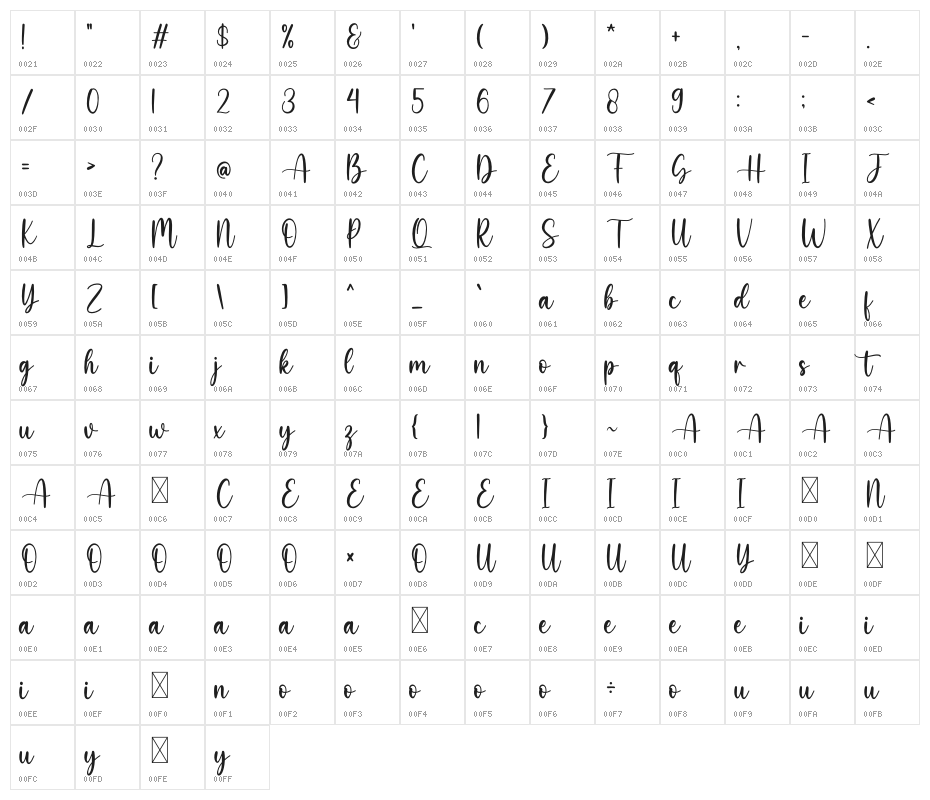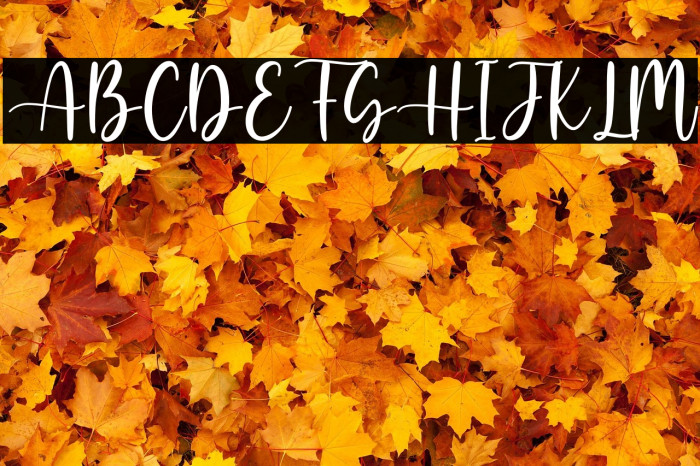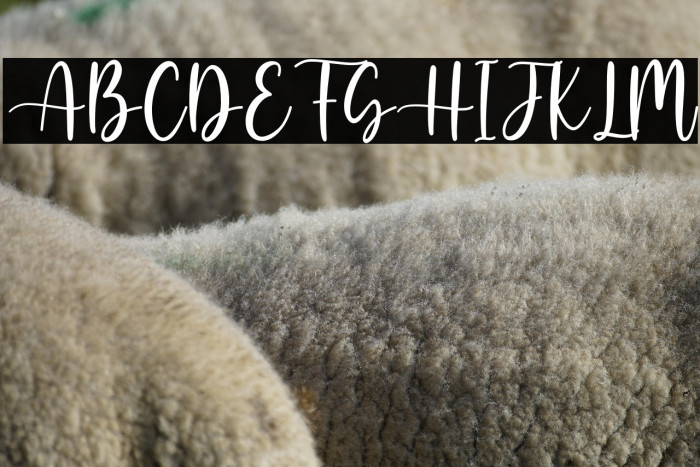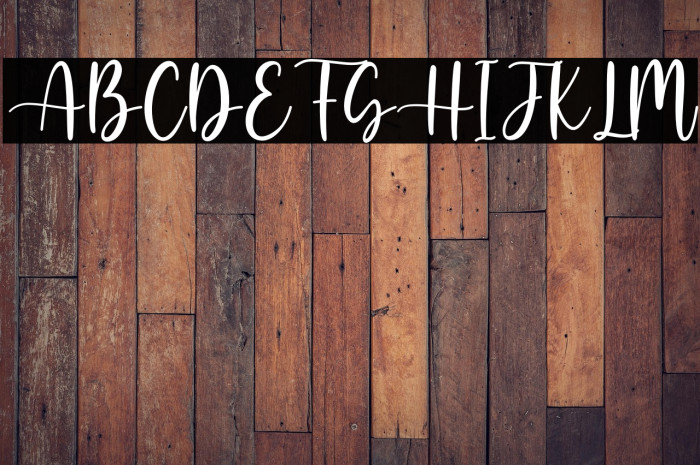
Belisha Font
Belisha Description
This font features a lively and flowing script style, characterized by its elegant and fluid strokes. The uppercase letters are bold and dynamic, with a playful yet sophisticated flair. The lowercase letters maintain a consistent flow, enhancing readability while preserving the font's artistic nature. Numbers and special characters are designed to complement the overall style, ensuring versatility across various applications. The font's unique charm makes it suitable for creative projects that require a personal touch.